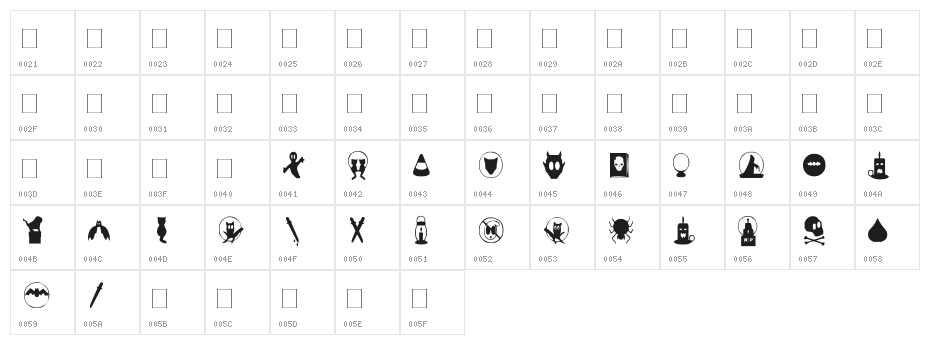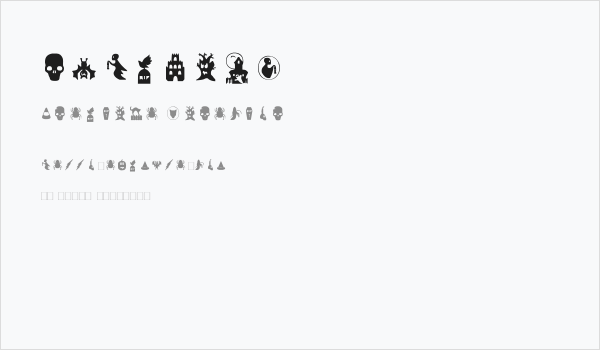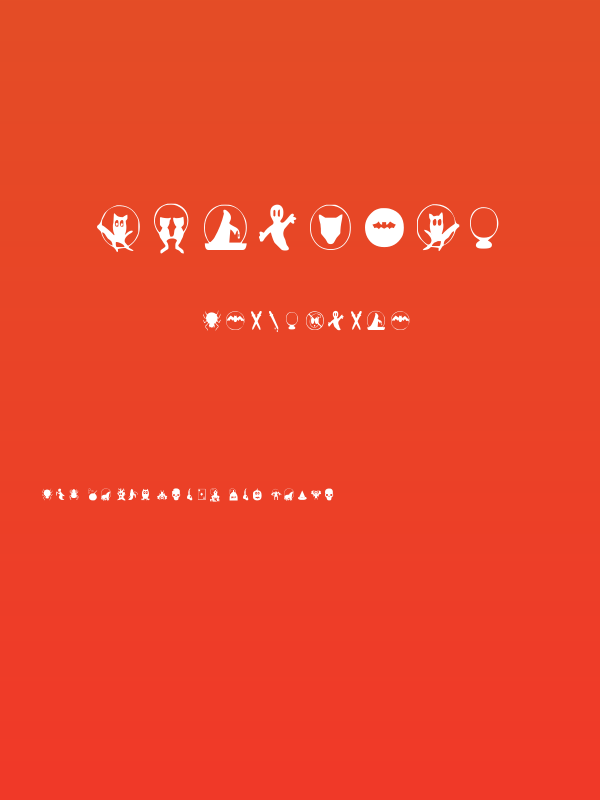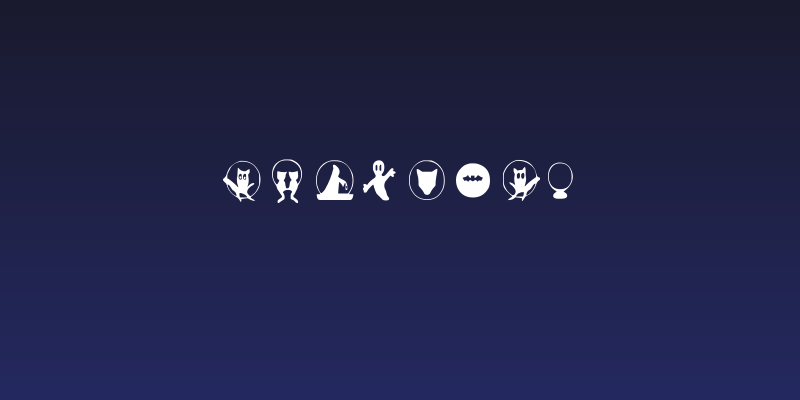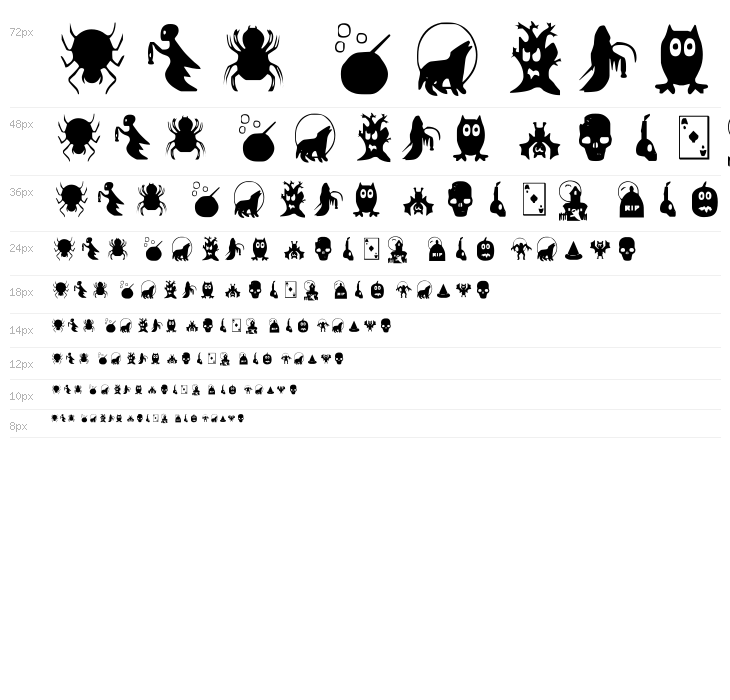
sbhading Font
| Stile generale | Decorative, Playful, Thematic |
| Caso d'uso | Decorative icons for seasonal or themed projects. |
| Progetti proposti | Halloween party invitations, event flyers, themed posters, greeting cards, social media graphics, and crafts. |